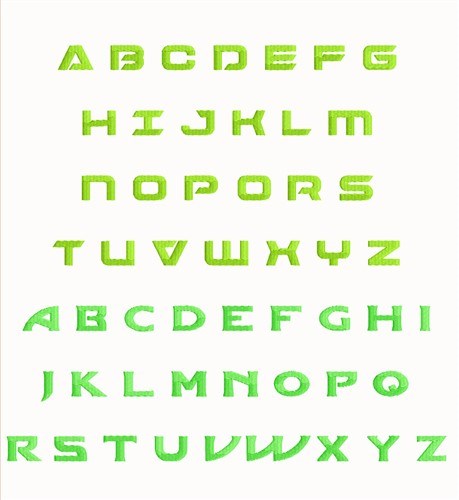
THOR Ragnarok Embrilliance Font - Bold Block Style Lettering - BX font by Unicorn Creatives and other embroidery fonts available at EmbroideryDesigns.com.
Unicorn Creatives is happy to present THOR Ragnarok Embrilliance Font - Bold Block Style Lettering - BX font machine embroidery font which has Bold block machine embroidery font showcasing 'THOR RAGNAROK' in vibrant yellow and green shades, ideal for dynamic projects on jackets or banners. Available in BX font and Embrilliance formats. included. If you would like to view more embroidery fonts and alphabets please search our embroidery fonts page.
THOR Ragnarok Embrilliance Font - Bold Block Style Lettering - BX font